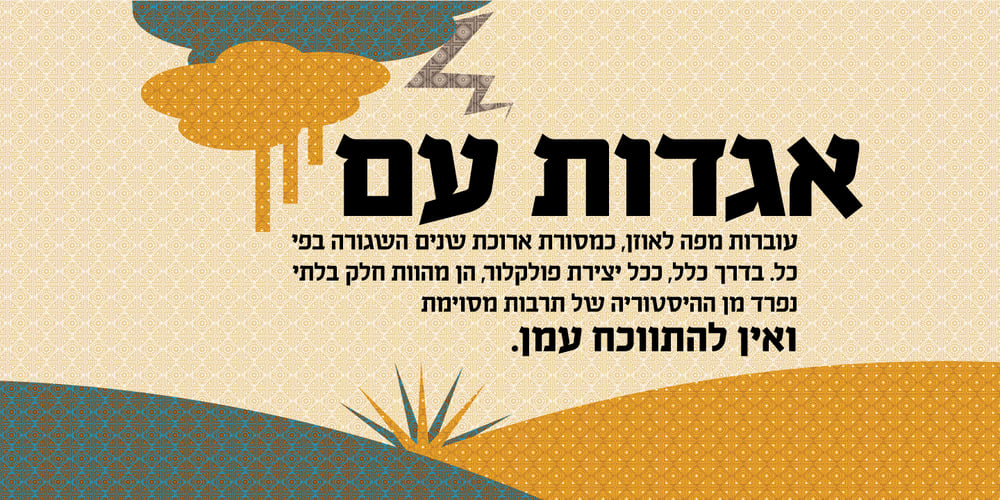
Rokach MF
Rokach MF font
Rokach MF Font Family was designed by Zvika Rosenberg and published by Masterfont. Rokach MF contains 4 styles and family package options. Tradition and romance joined in the beautiful typeface, inspired by old hand drawn signs in Tel Aviv.